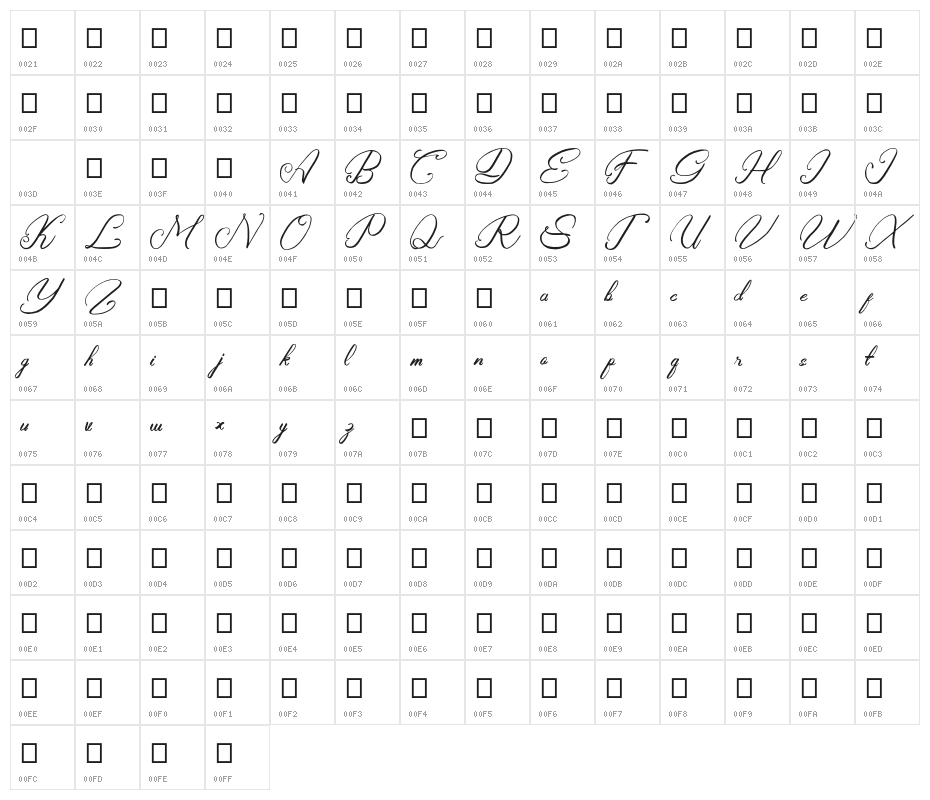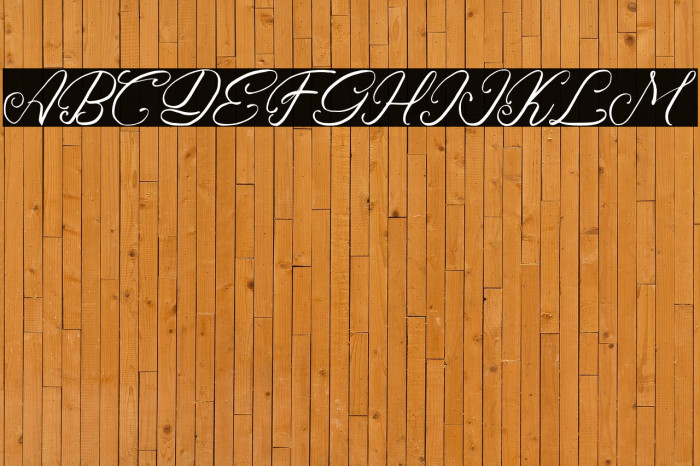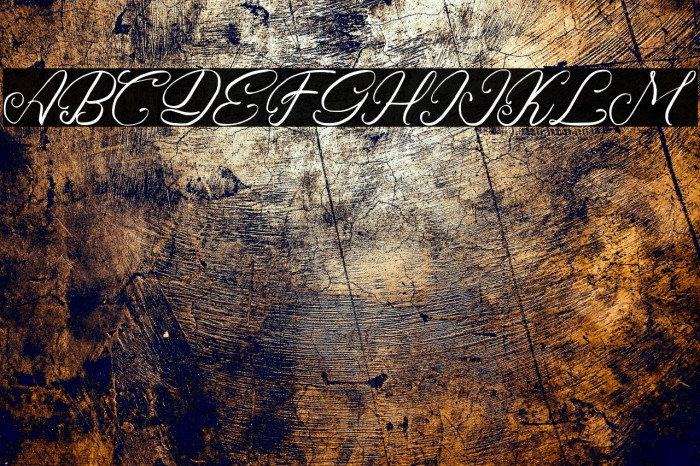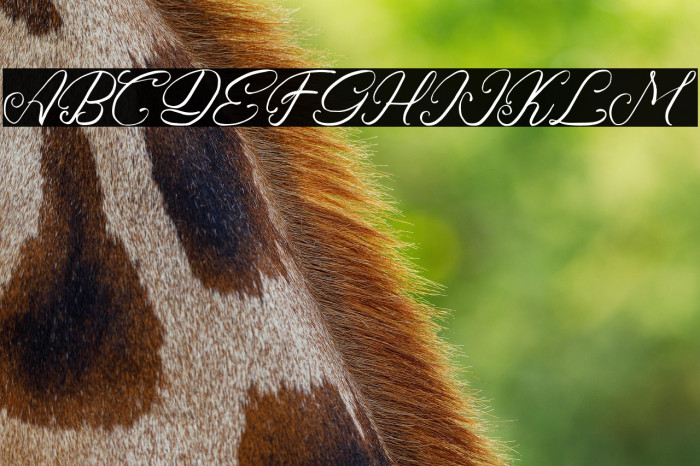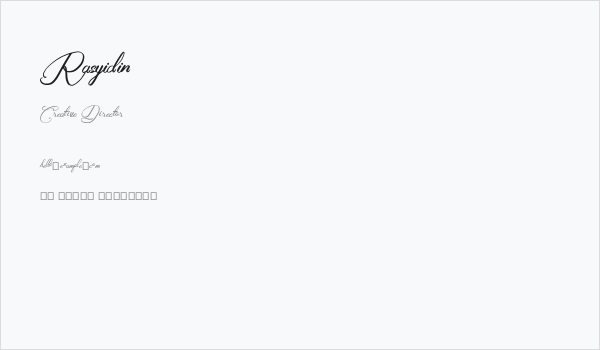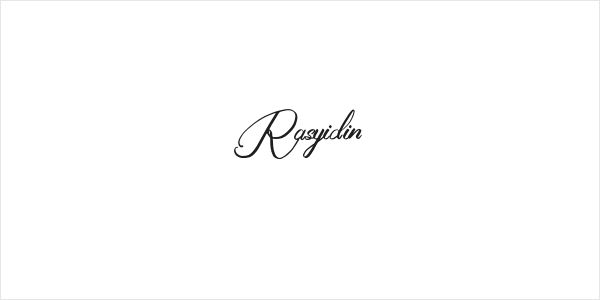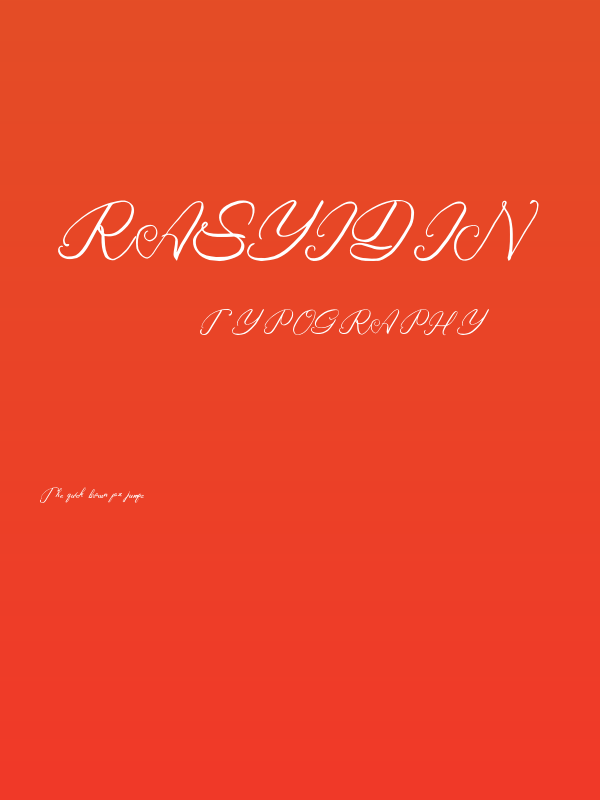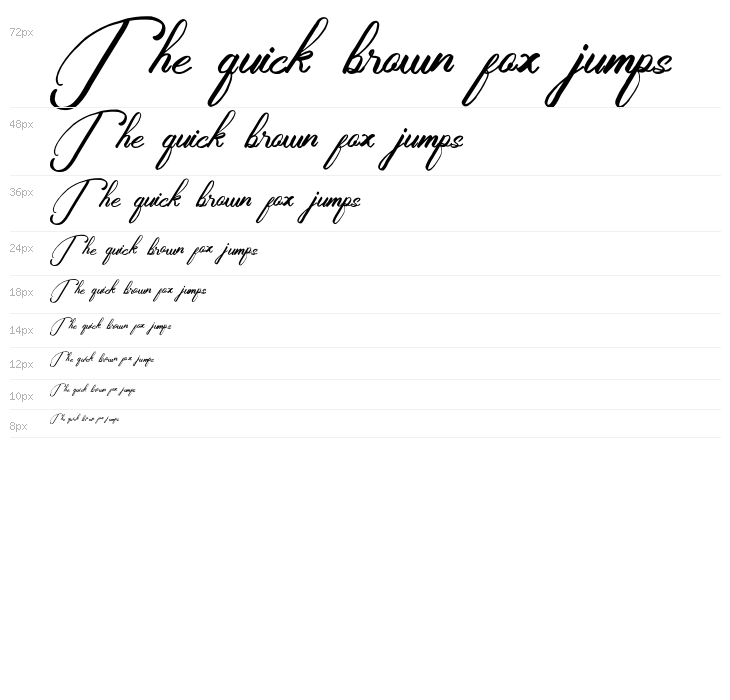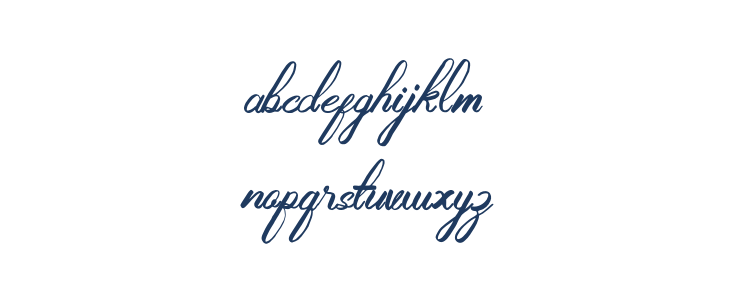
Rasyidin Font
Rasyidin Description
This elegant script font features graceful, flowing lines that mimic the fluidity of cursive handwriting. The uppercase letters are ornate and connected, while the lowercase letters maintain a consistent, smooth stroke. The font exudes a sense of sophistication and charm, making it ideal for formal invitations and branding that requires a touch of elegance. The characters are well-spaced, ensuring readability while maintaining the decorative style. The font lacks numerical and special character representation, focusing solely on alphabetic characters.
| Use Case | Invitations, Branding |
| Proposed Projects | Ideal for wedding invitations, elegant branding, and formal event materials. |